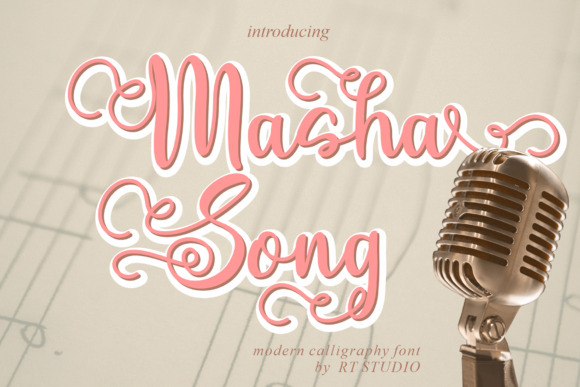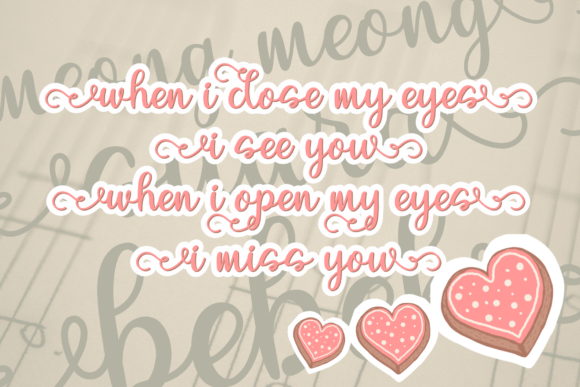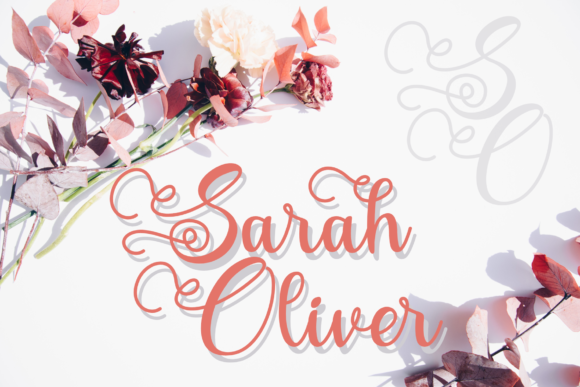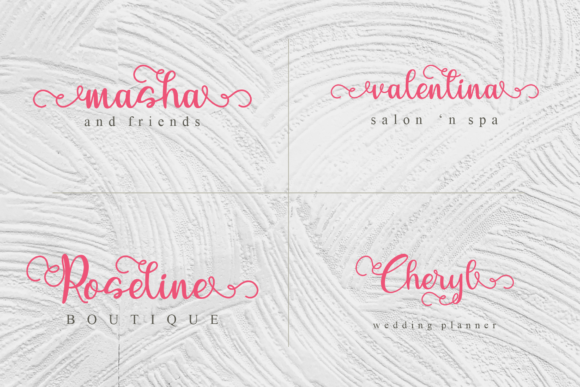
About Masha Song Font
Masha Song is an elegant script font with a contemporary atmosphere and impeccable form, inspired by timeless classic calligraphy. Not too thin and not too thick, balanced and varied, Masha Song was designed to enhance the beauty of your projects.